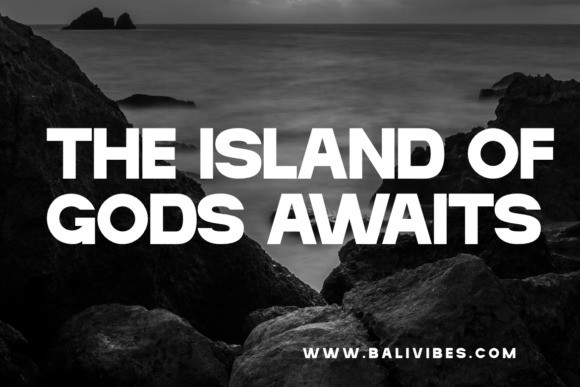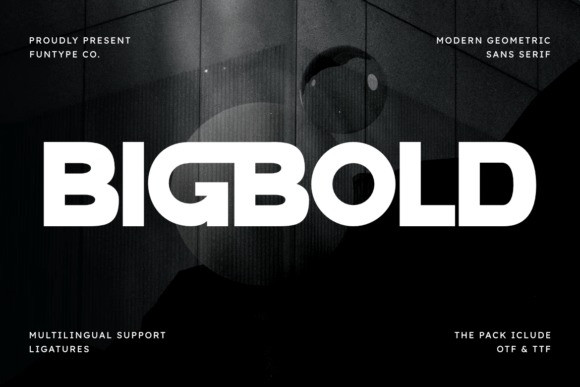
Bigbold Font
Bigbold Font is a striking, modern geometric sans-serif font. True to its name, this typeface is incredibly bold and solid, instantly grabbing attention with its rounded, friendly yet assertive form. It is crafted to deliver maximum impact and clarity, making it perfect for powerful headlines, impactful branding, logo design, sports graphics, editorial work, and display purposes. With its clean structure, ligatures, and multilingual support, BIGBOLD offers versatility and a contemporary, professional look for any project that needs to stand out and speak loudly.